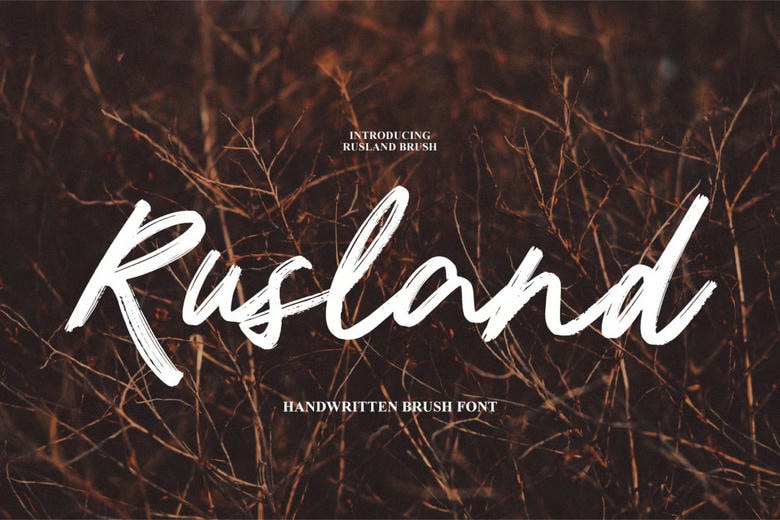
Rusland Font
Rusland Brush with a handmade Signature style, decorative characters and a dancing baseline! Rusland Brush with 150+ glyphs. The alternative characters were divided into several Open Type features such as Swash, Stylistic Sets, Stylistic Alternates, and Ligature.
Rusland Brush Font